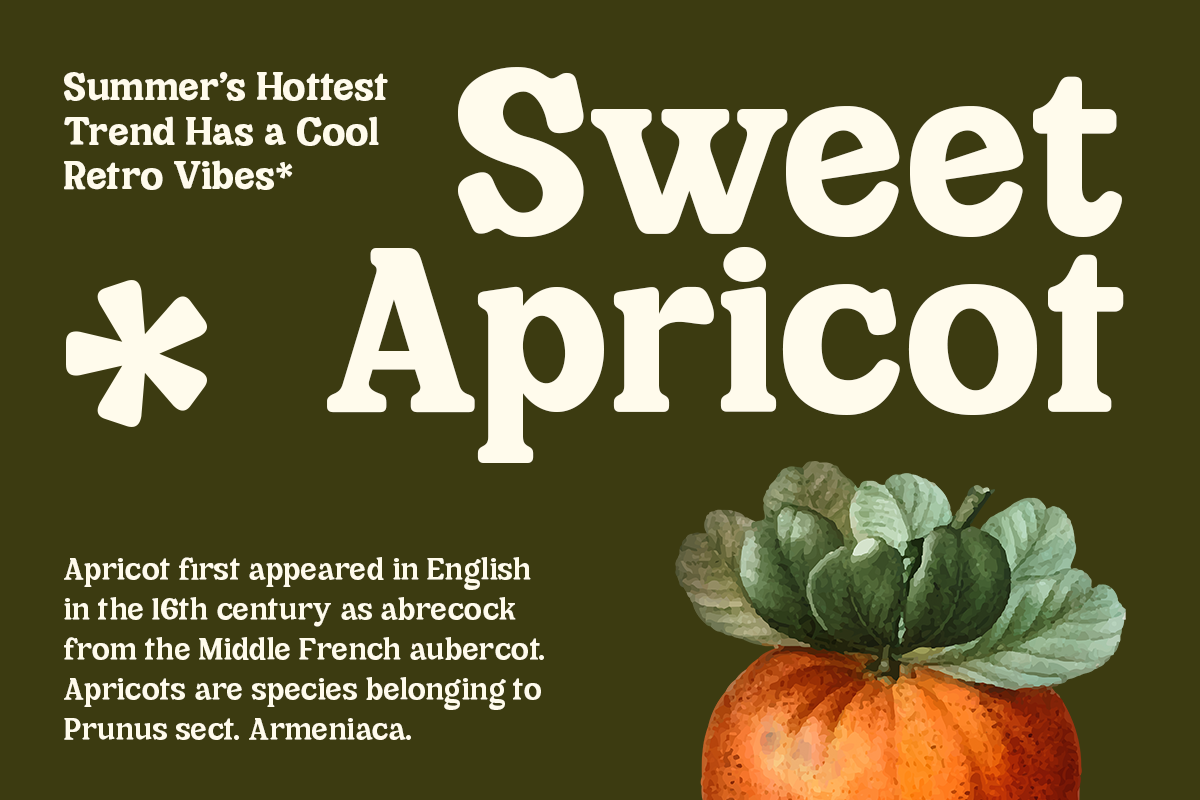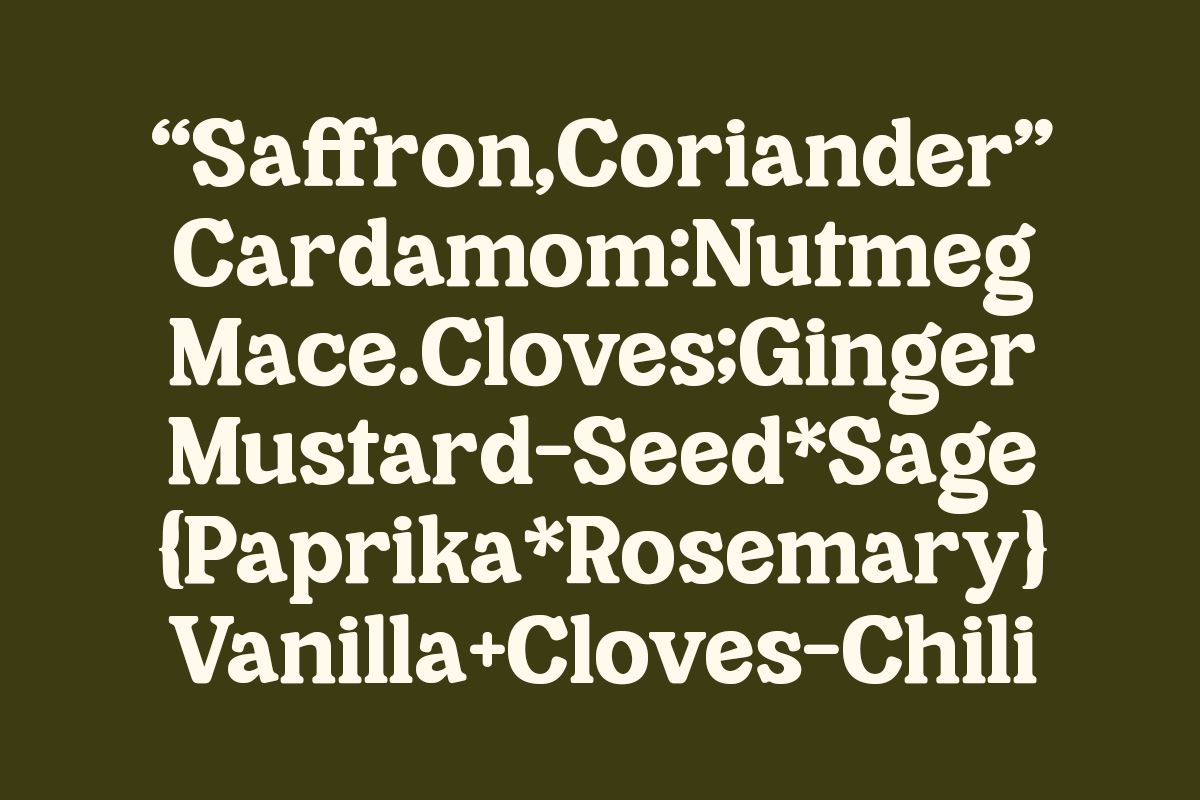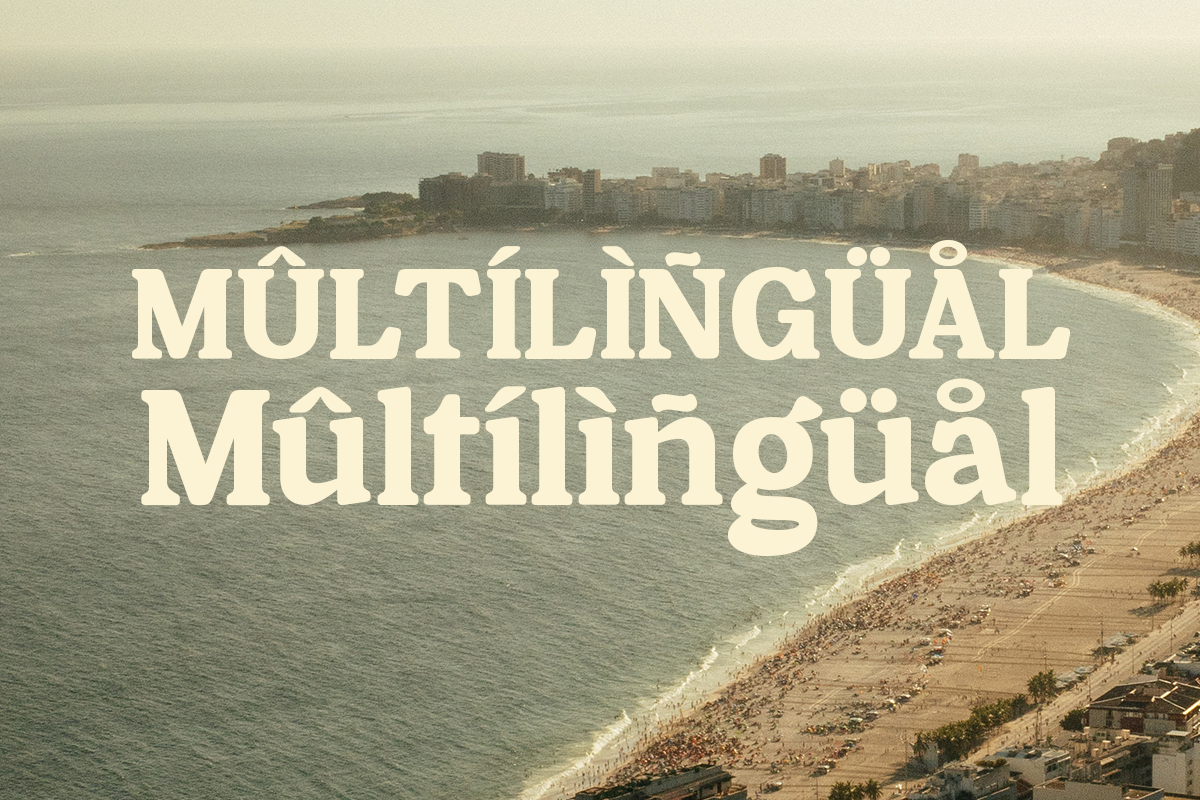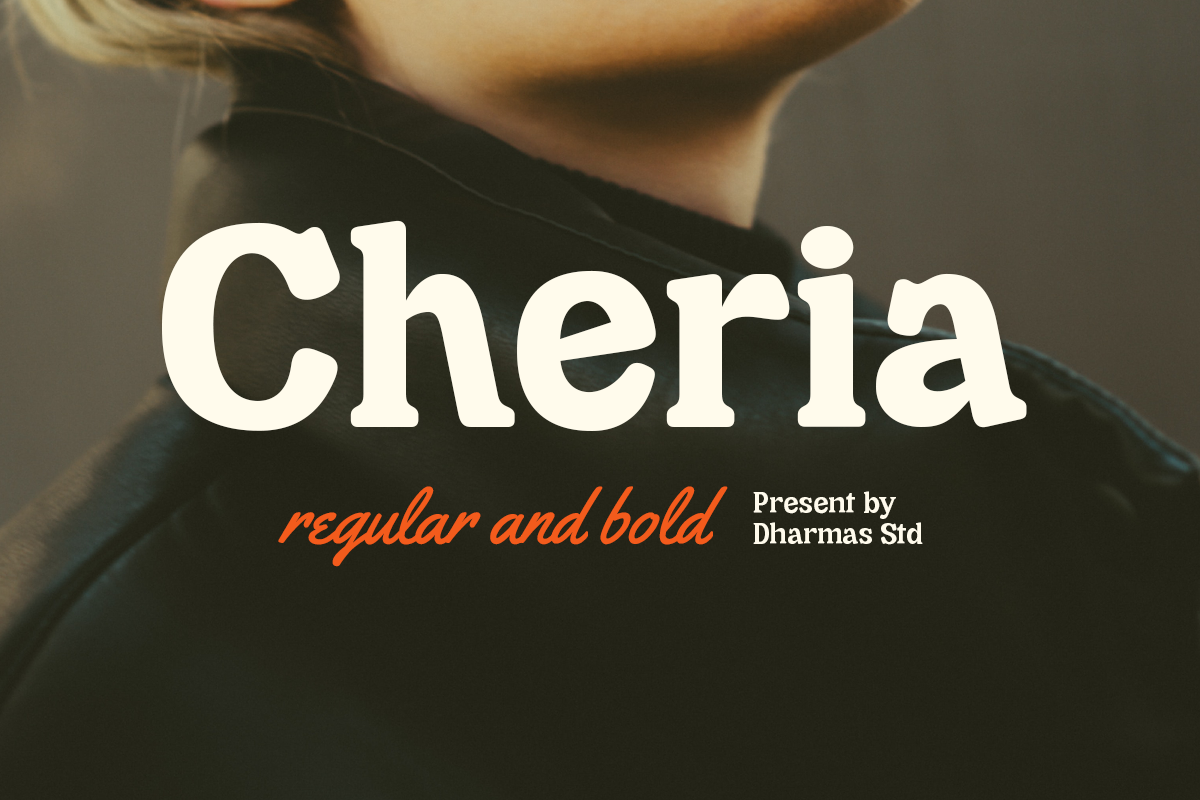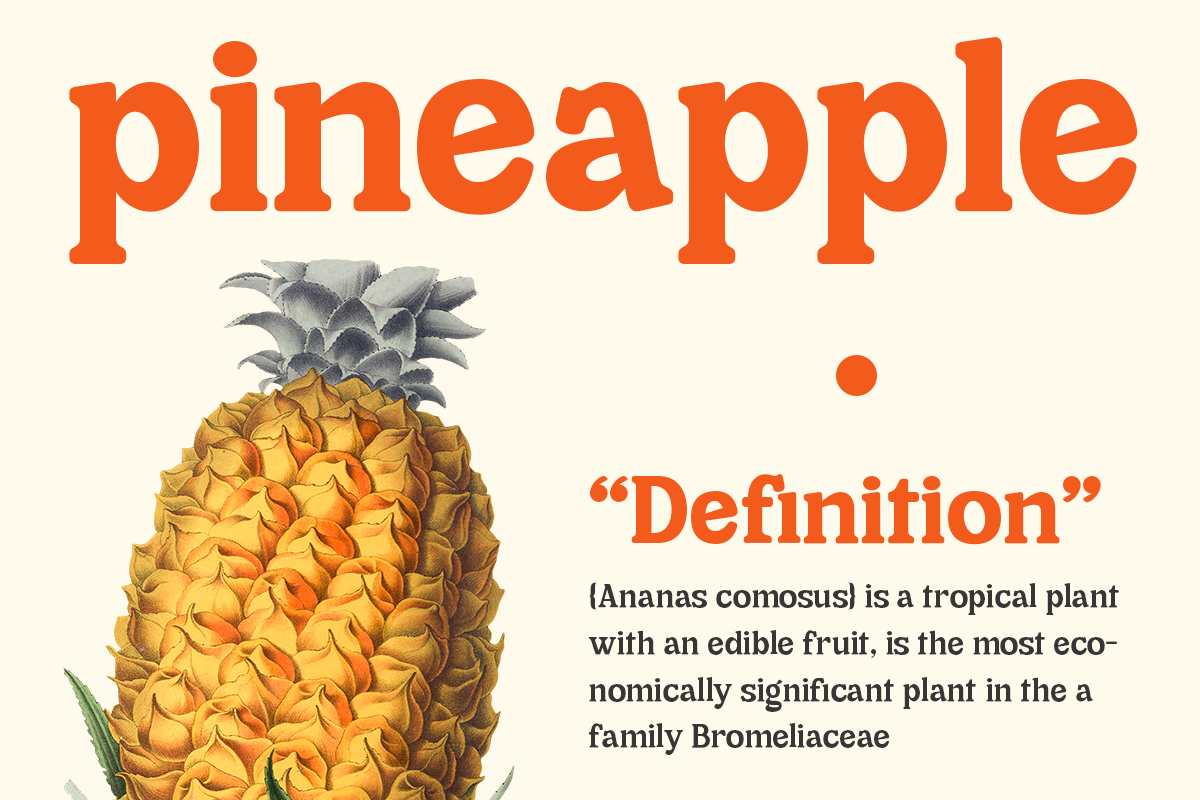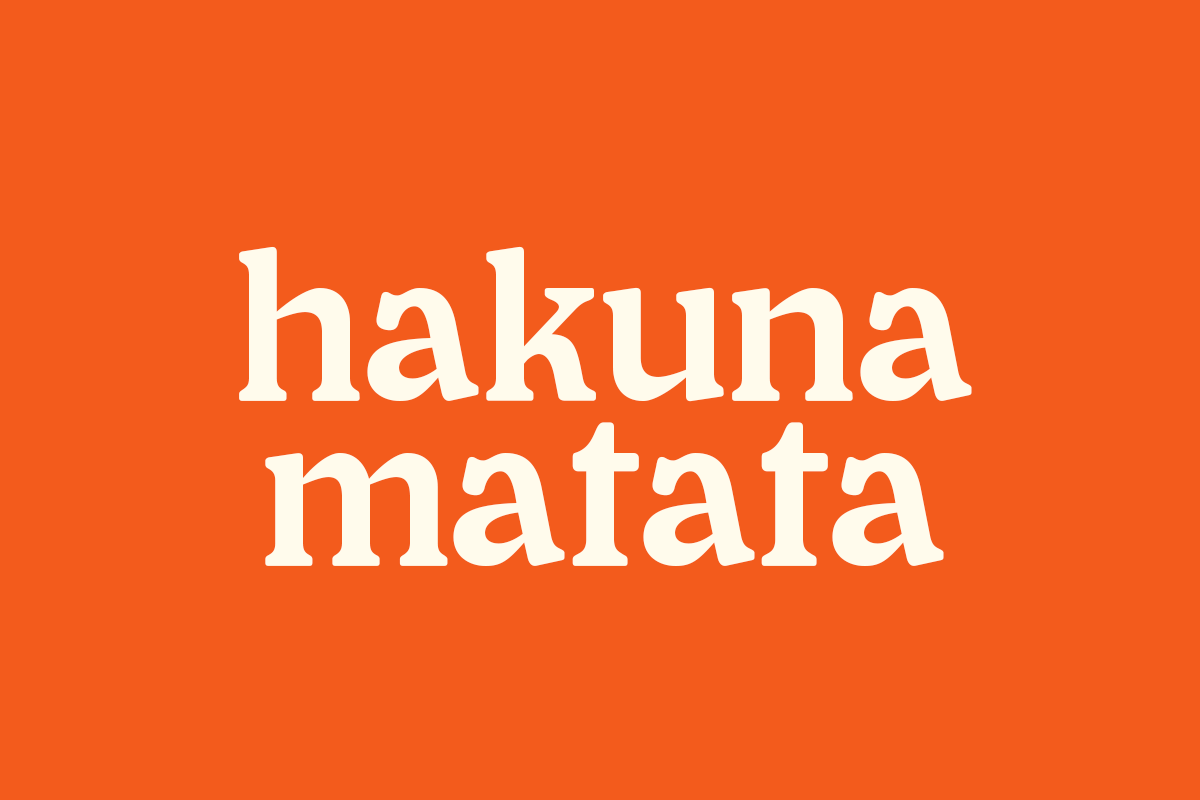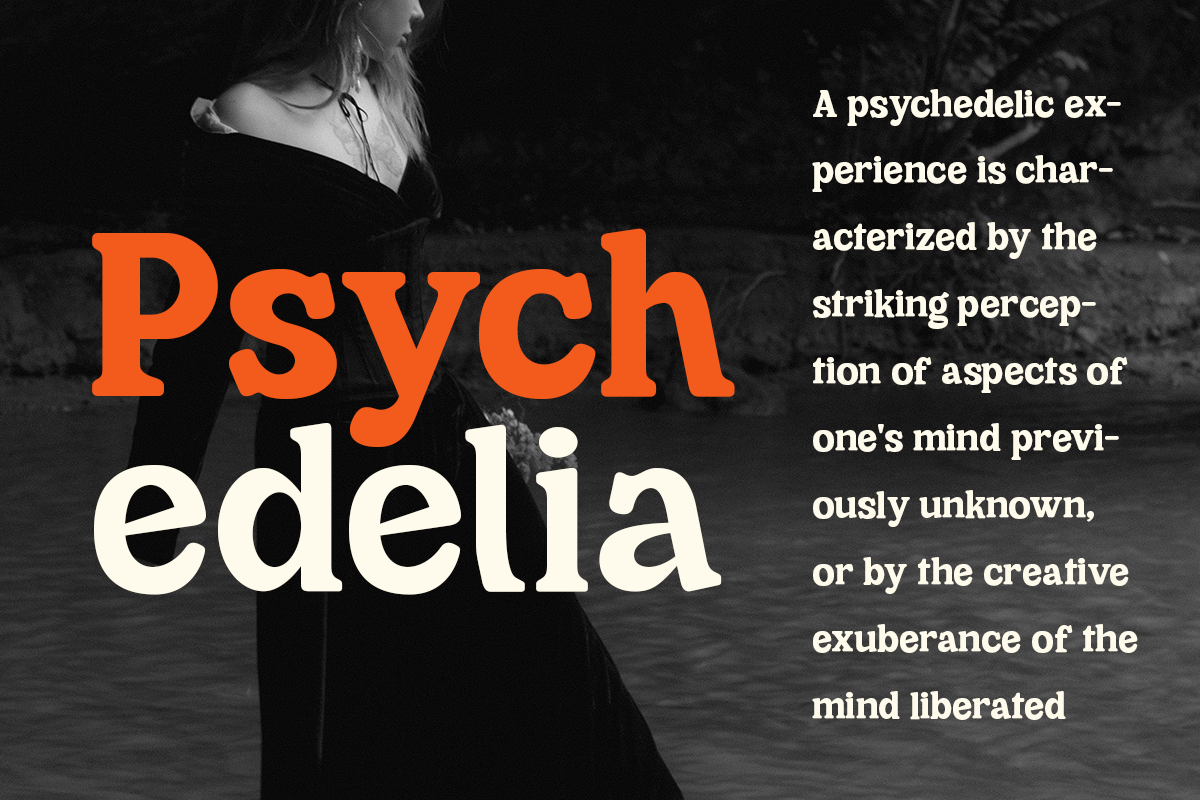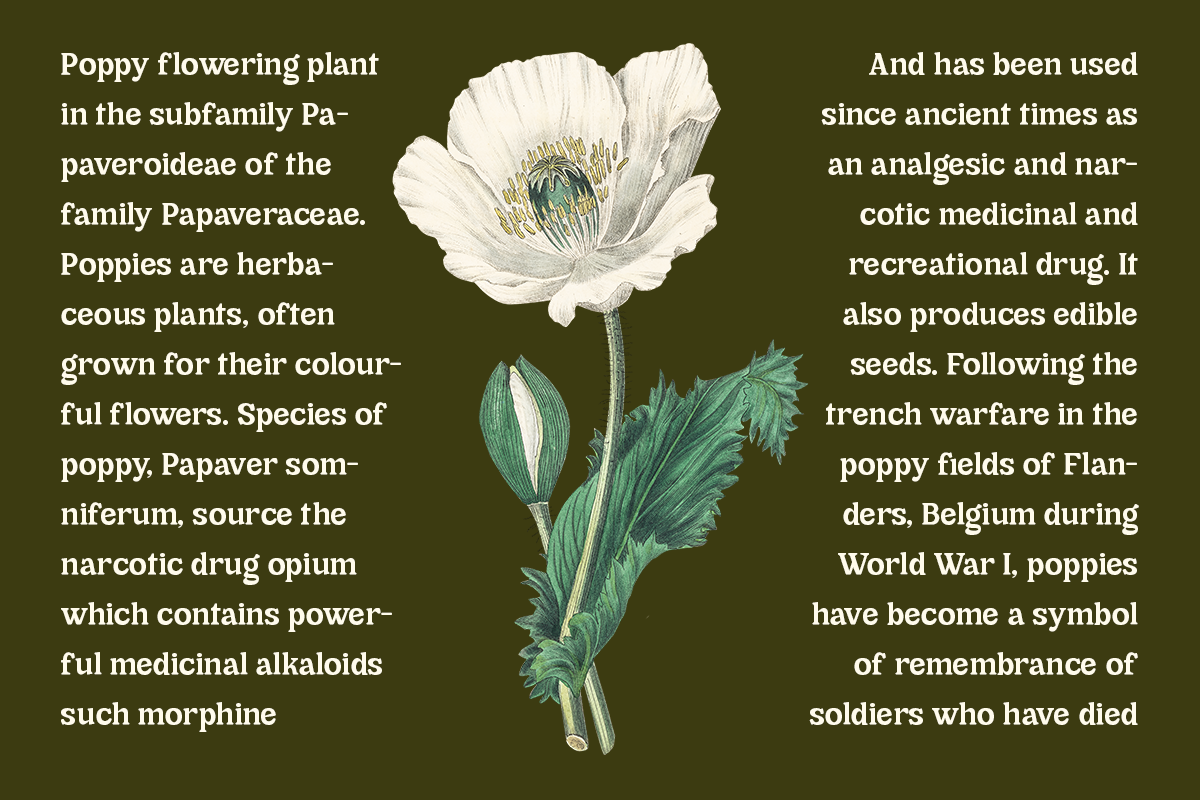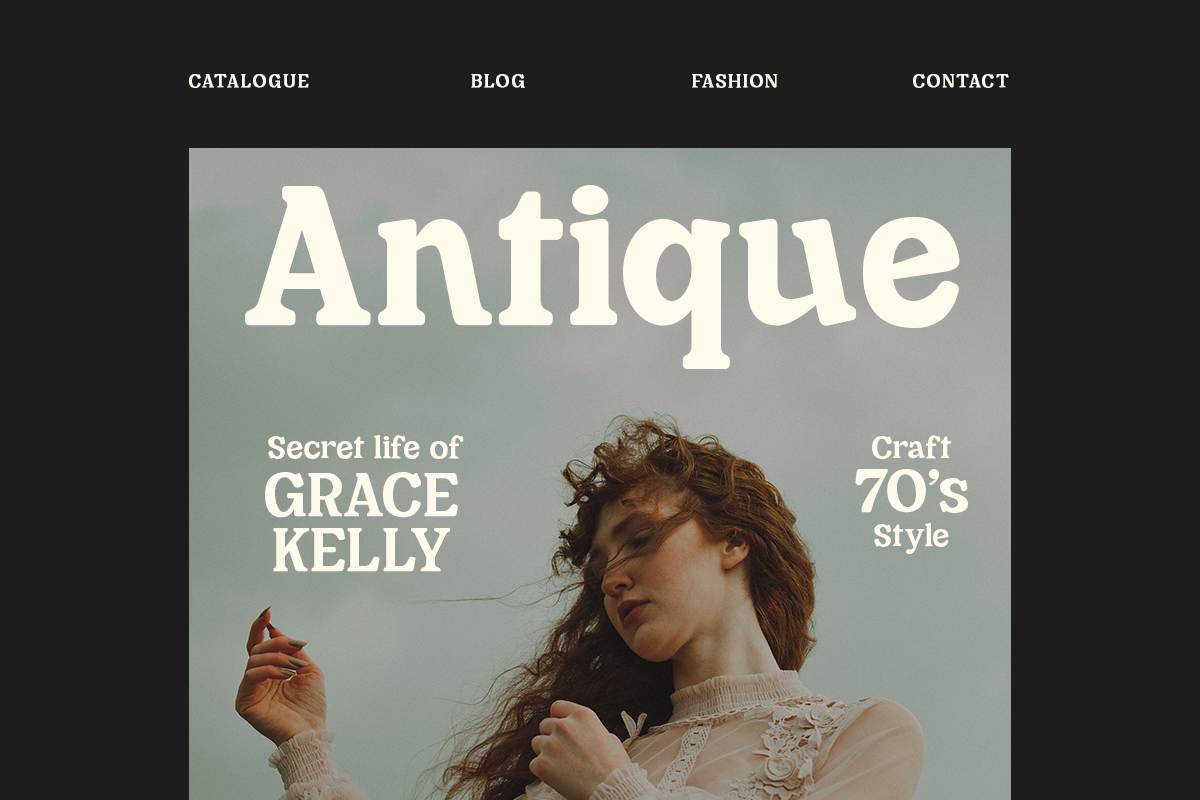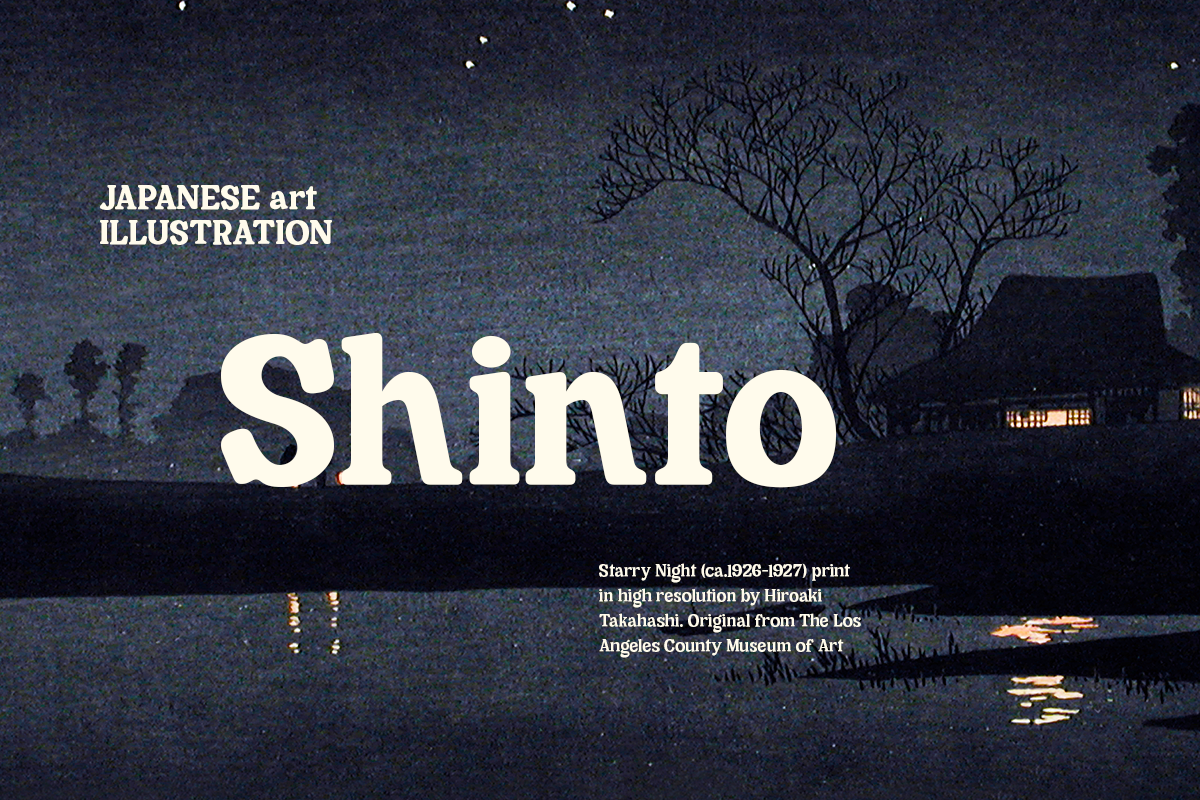
Cheria - Humanist Retro Font
Say hello to our new Retro font, Cheria!
Cheria - A chunky serif texture with a bit of humanist touch. With its good readability, Cheria is perfect for both displays as well as body text. Inspired by all the retro aesthetics making a comeback, Cheria is perfectly suitable for creating thoughtful yet still contemporary designs such as logos, packaging, editorial, and more.
Cheria - Has a unique shape, where all uppercase letters have alternates so you can combine them to make your text and header look more interesting!
- Regular and Bold family
- Alternate and Ligature
- Letters, numbers, symbols, and punctuation